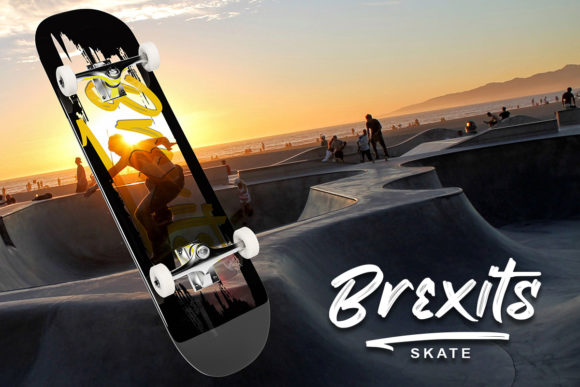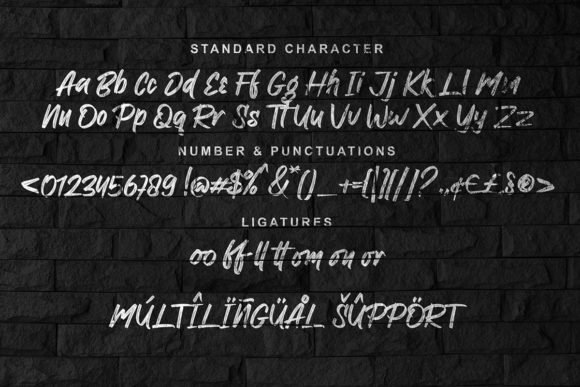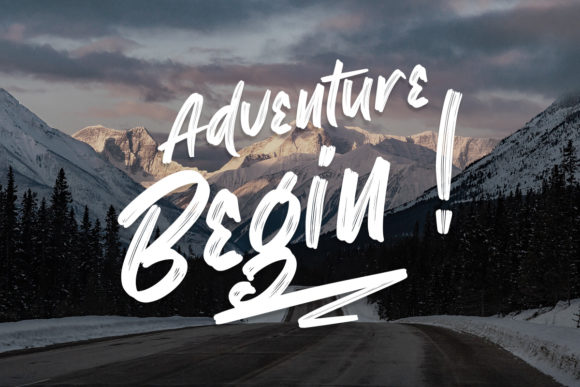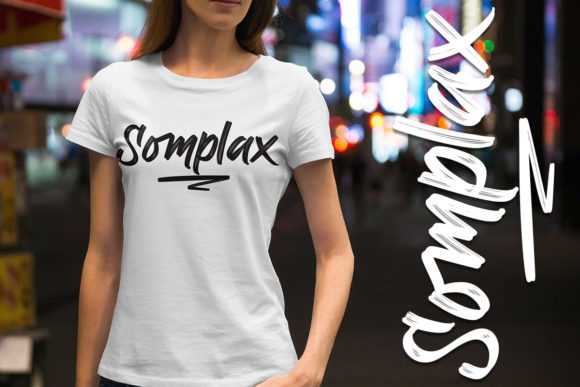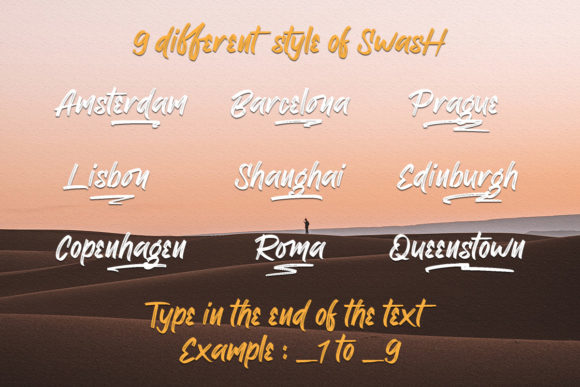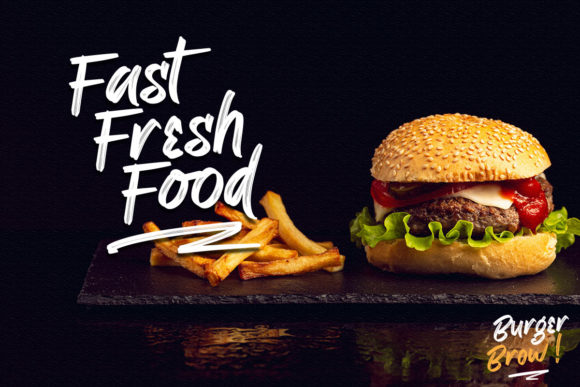
Introduction to Ronxetta Font
Ronxetta is a modern script font made with an authentic dry brush, and a bouncy baseline.
It is Ideal for logos, handwritten quotes, product packaging, header, poster, merchandise, social media, greeting cards and more This font is PUA encoded which means you can access all of the glyphs and swashes with ease.
Key Features of Ronxetta Font